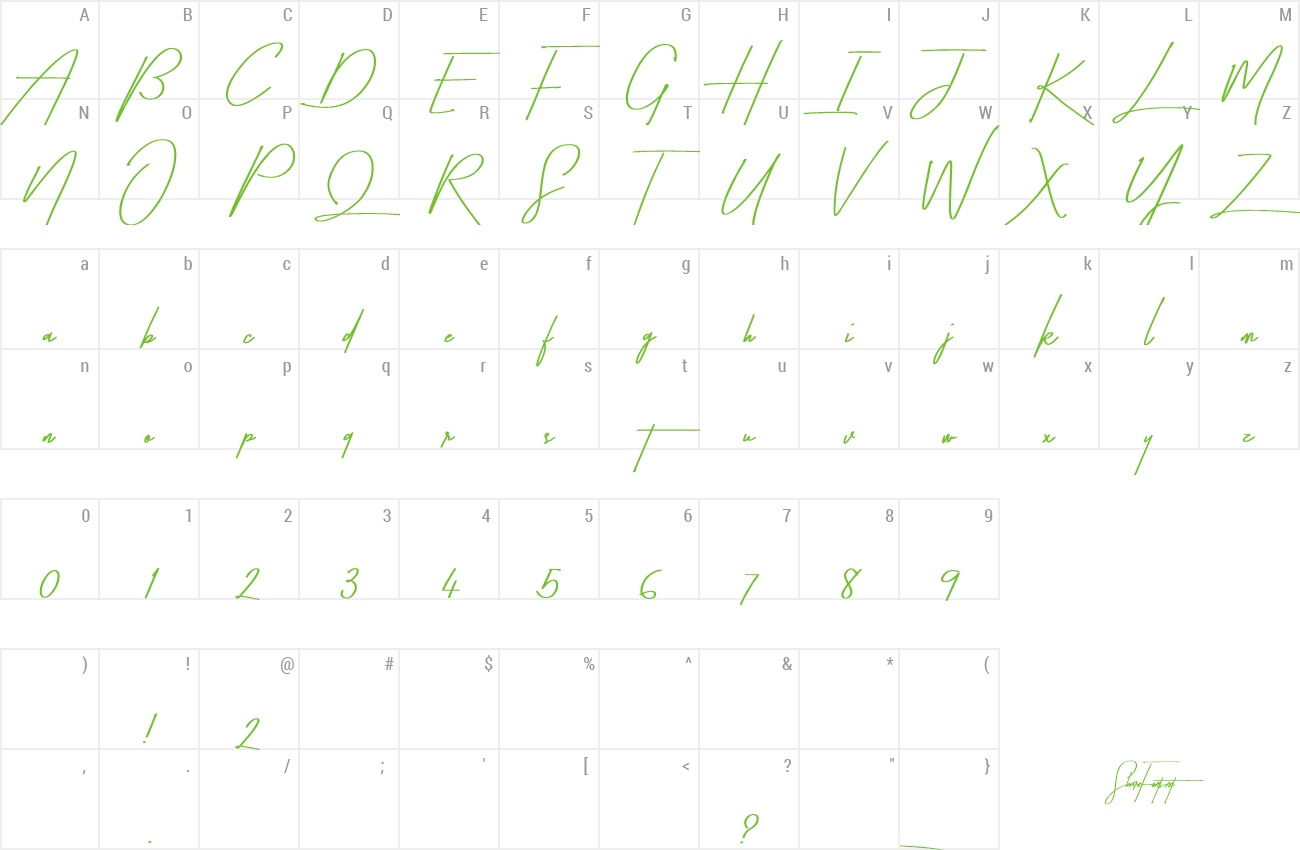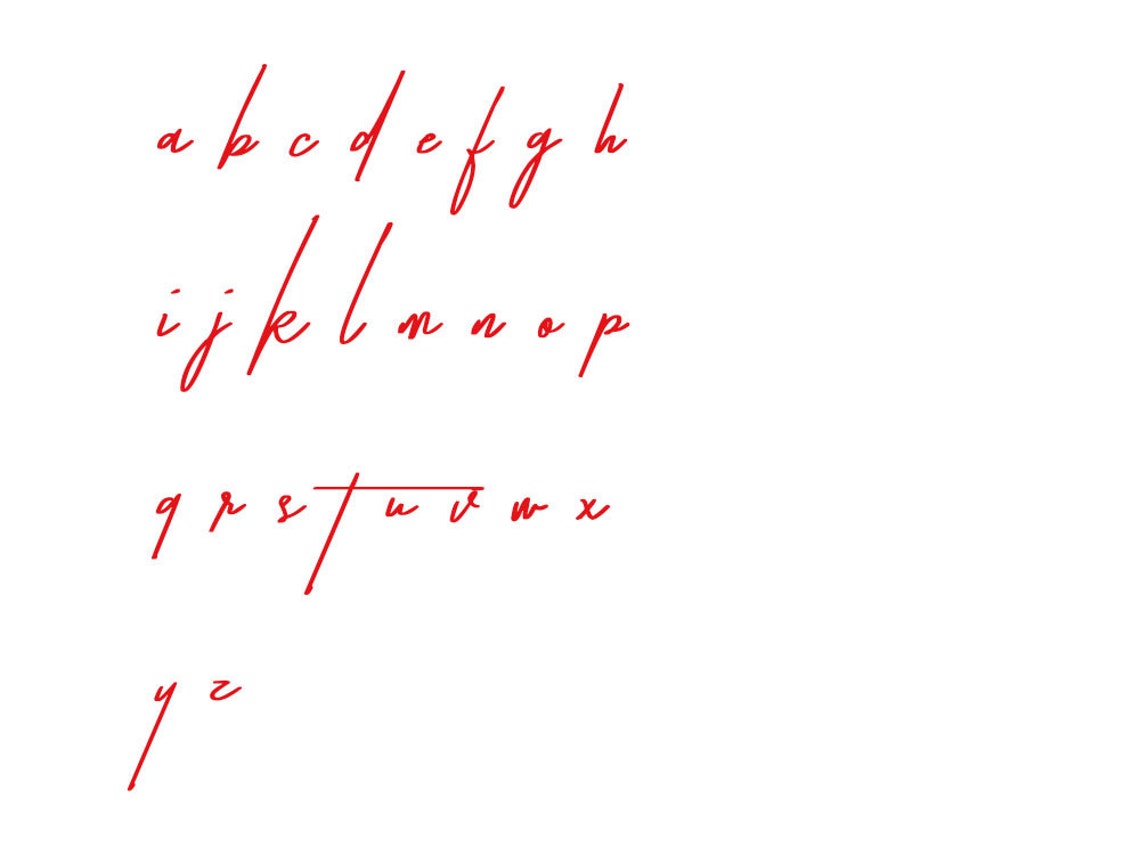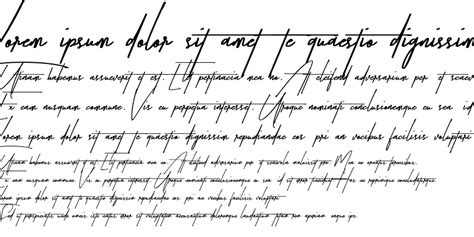
Taken By Vultures Font
Taken By Vultures Font - Web taken by vultures font is a script handwritten typeface that comes with a beautiful set of letters. Web taken by vultures font is a script handwriting typeface with a close affinity for branding and photography.
Web taken by vultures font is a script handwritten typeface that comes with a beautiful set of letters. Web taken by vultures font is a script handwriting typeface with a close affinity for branding and photography.
Web taken by vultures font is a script handwriting typeface with a close affinity for branding and photography. Web taken by vultures font is a script handwritten typeface that comes with a beautiful set of letters.
Web Taken By Vultures Font Is A Script Handwriting Typeface With A Close Affinity For Branding And Photography.
Web taken by vultures font is a script handwritten typeface that comes with a beautiful set of letters.